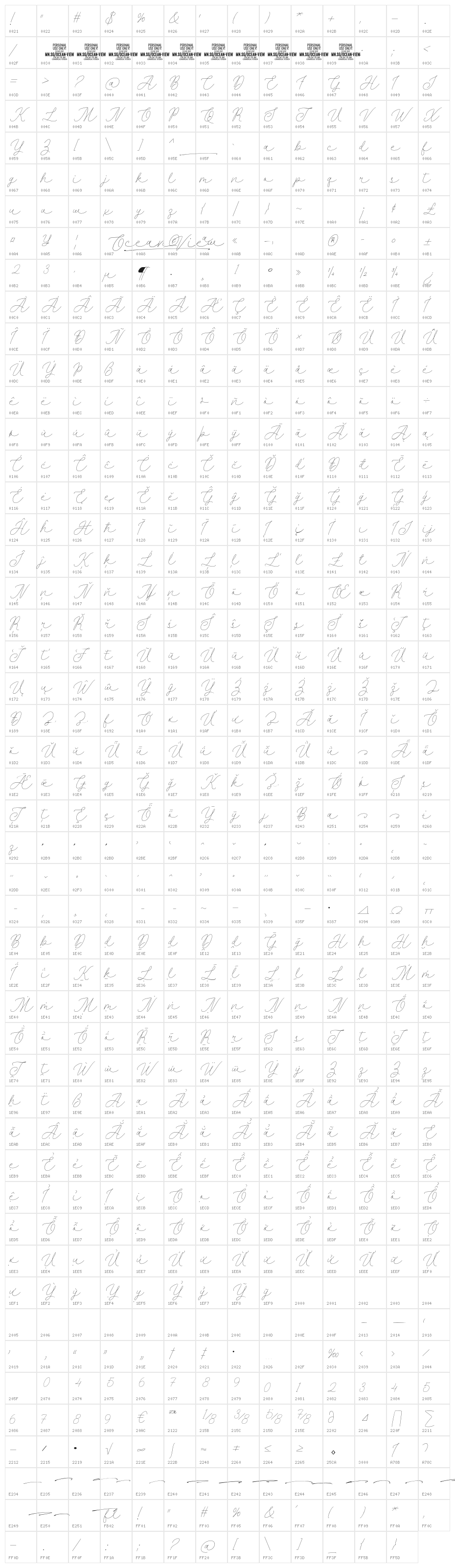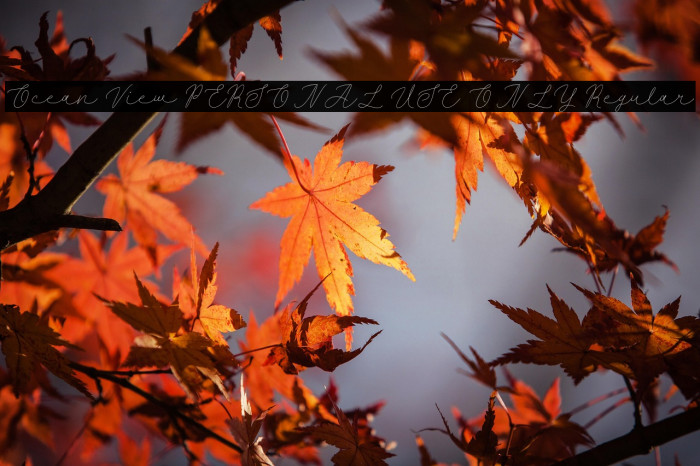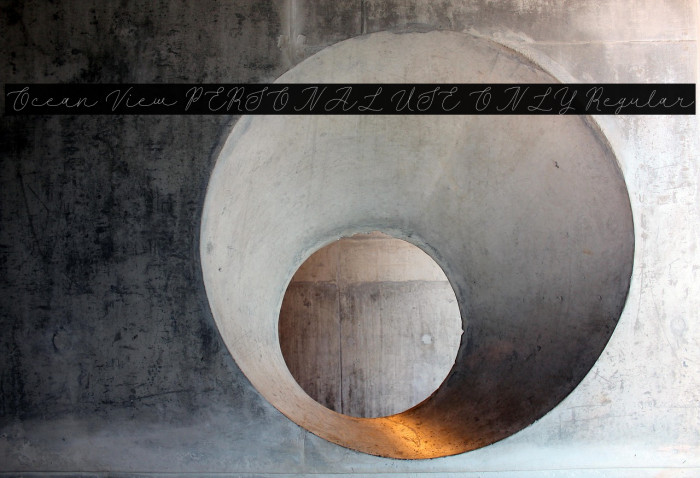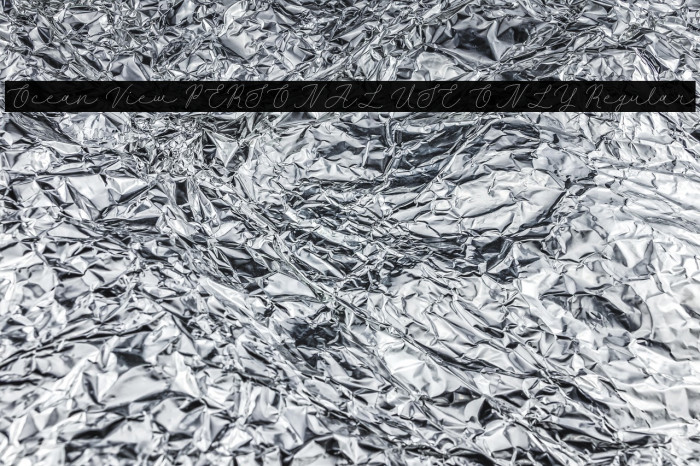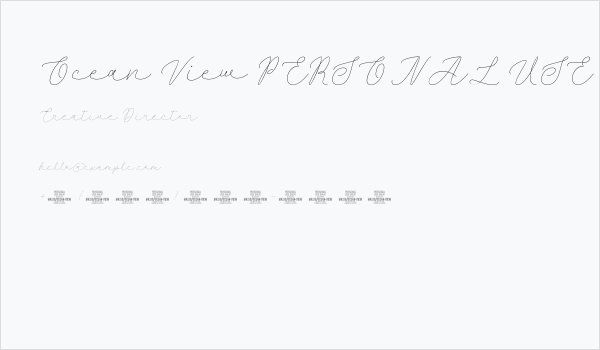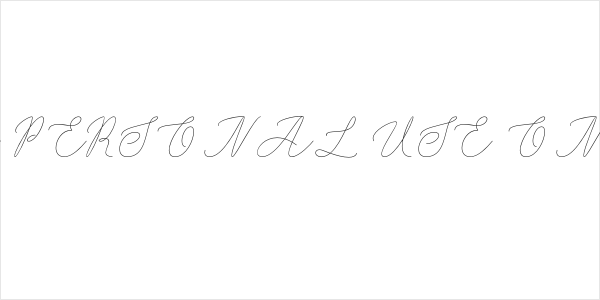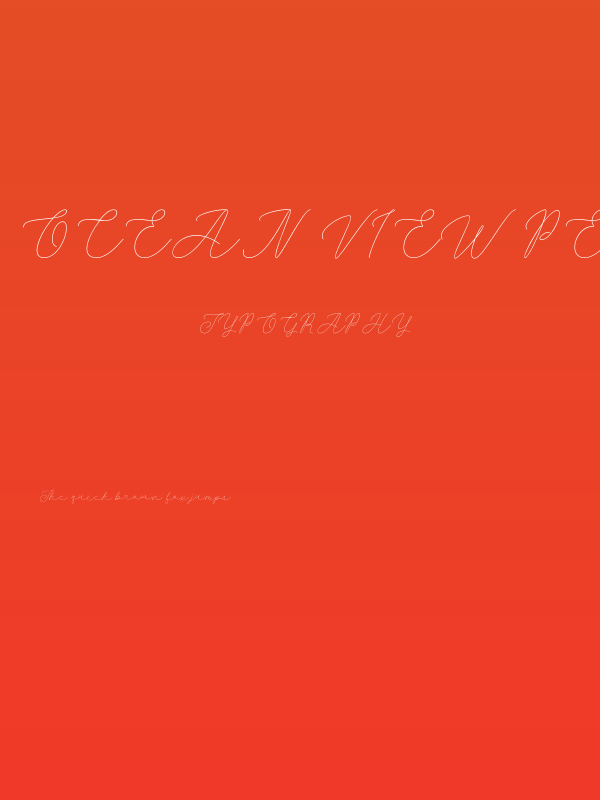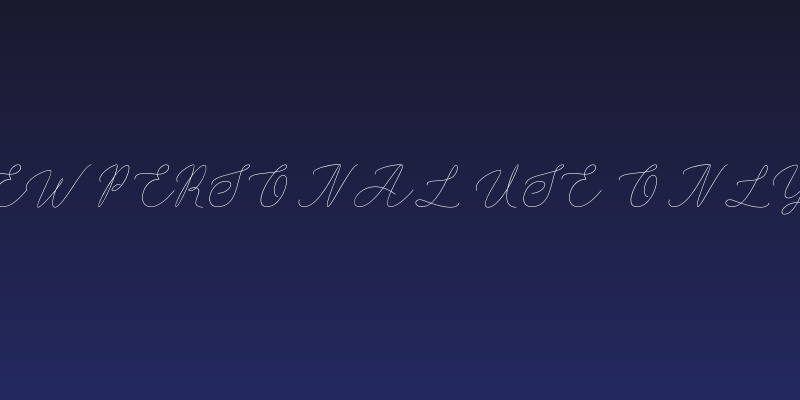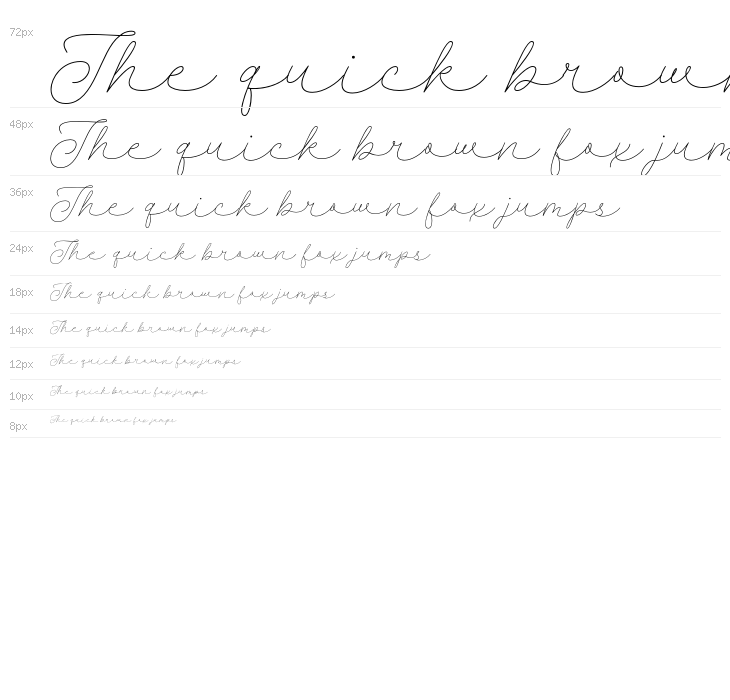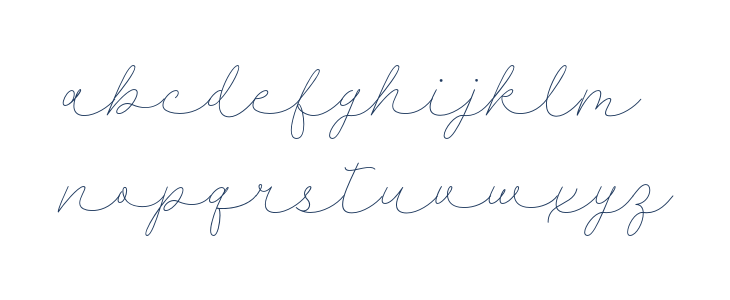
Ocean View PERSONAL USE ONLY Regular Font
Ocean View PERSONAL USE ONLY Regular Description
This elegant script font features a delicate and flowing design, characterized by its graceful curves and smooth connections between letters. The uppercase letters exhibit a sophisticated flair, while the lowercase letters maintain a consistent and harmonious flow. The font's thin strokes and gentle loops give it a refined and airy appearance, making it ideal for projects that require a touch of elegance and sophistication. The numerals and special characters are crafted with the same attention to detail, ensuring a cohesive look across all text elements.
| Proposed Projects | Ideal for wedding invitations, greeting cards, branding, and elegant packaging designs. |